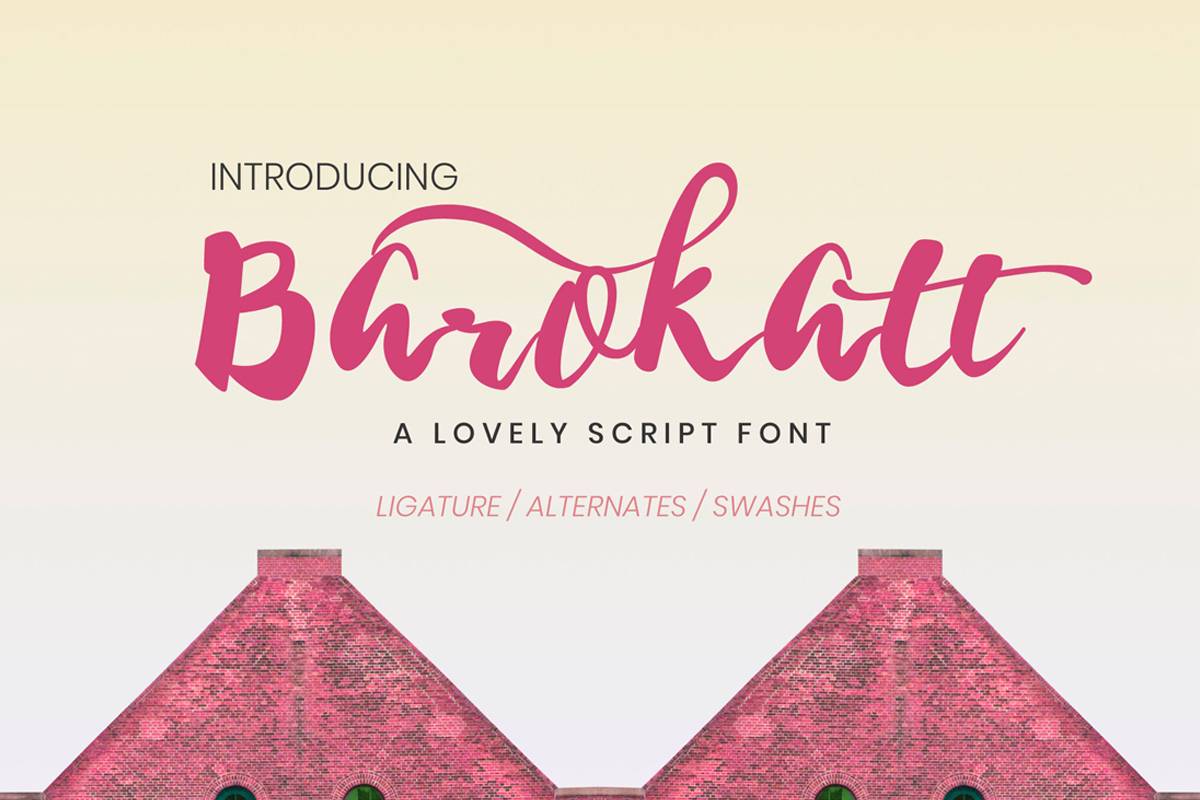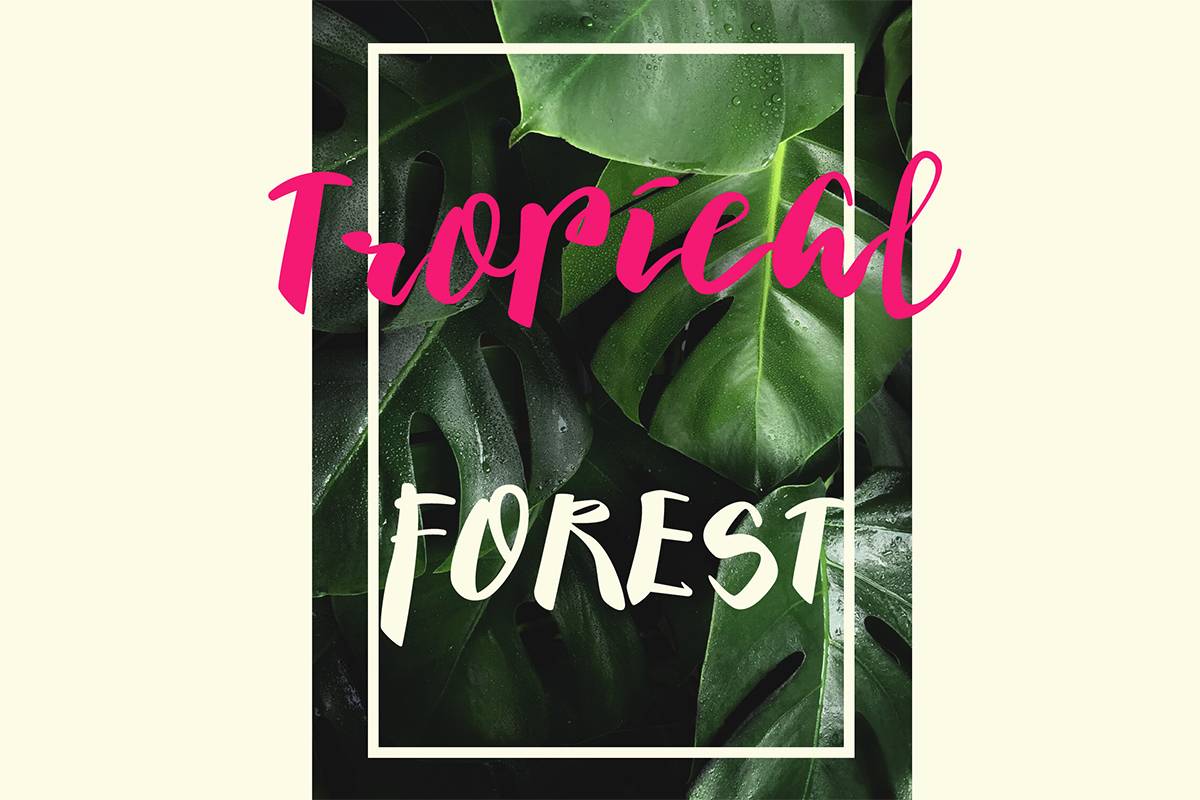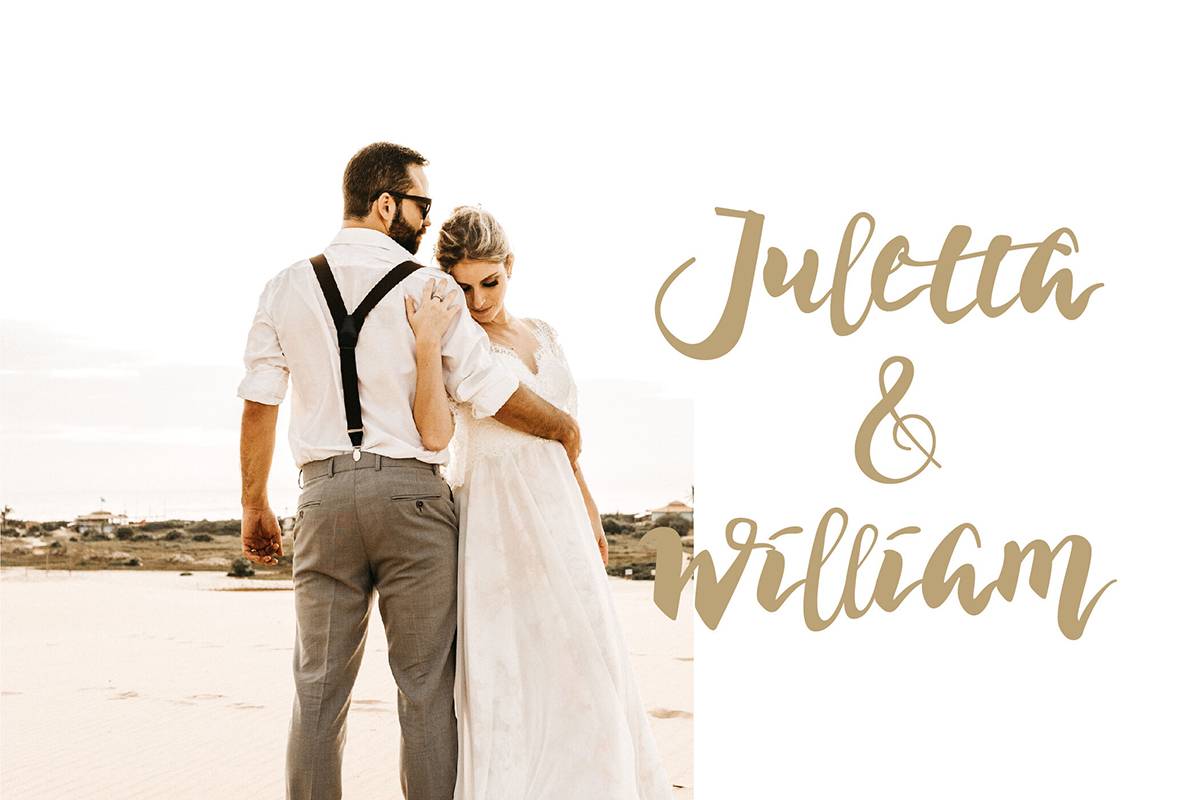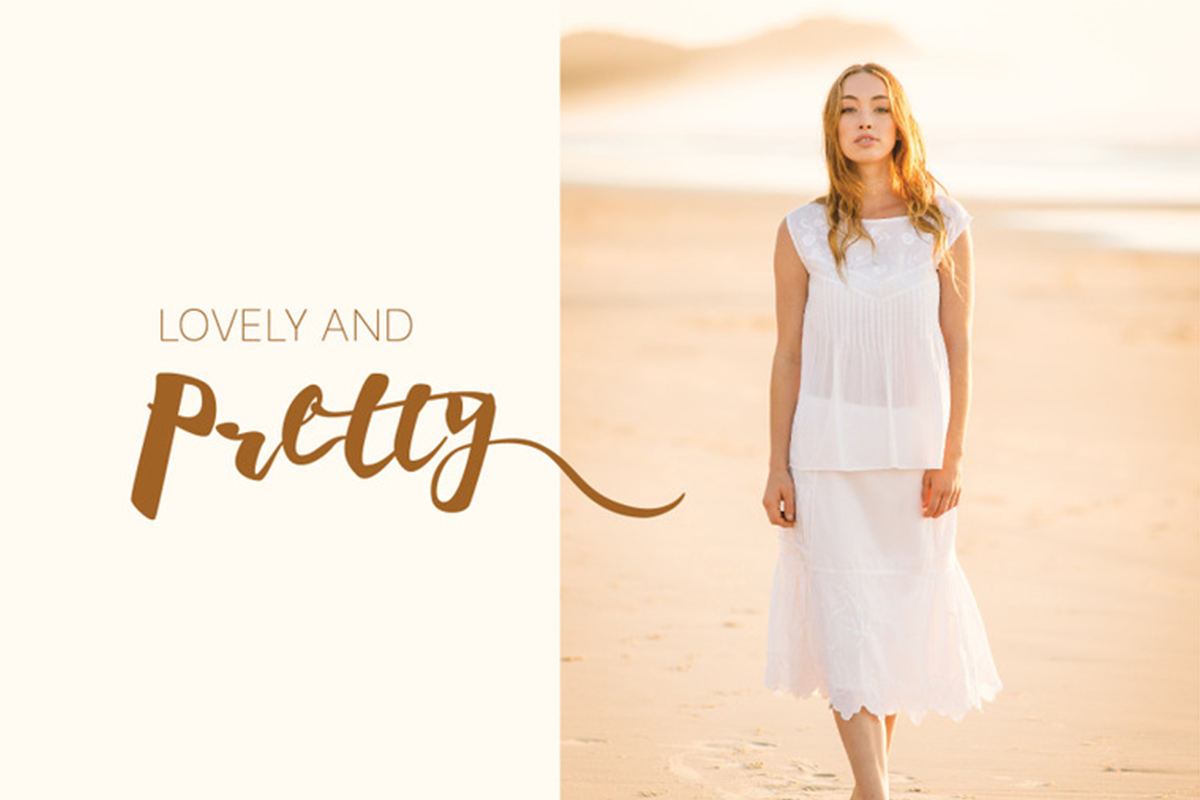
Barokatt Script is a lively and expressive handwritten script font featuring bold, irregular strokes that give it a casual yet artistic feel. Its dynamic letterforms, with a mix of thick and thin lines and playful curves, make it perfect for creative branding, invitations, and eye-catching headlines. This font works especially well where a personal, handcrafted touch is desired, adding warmth and originality to any design.
Barokatt Script Font
About Barokatt Script Font